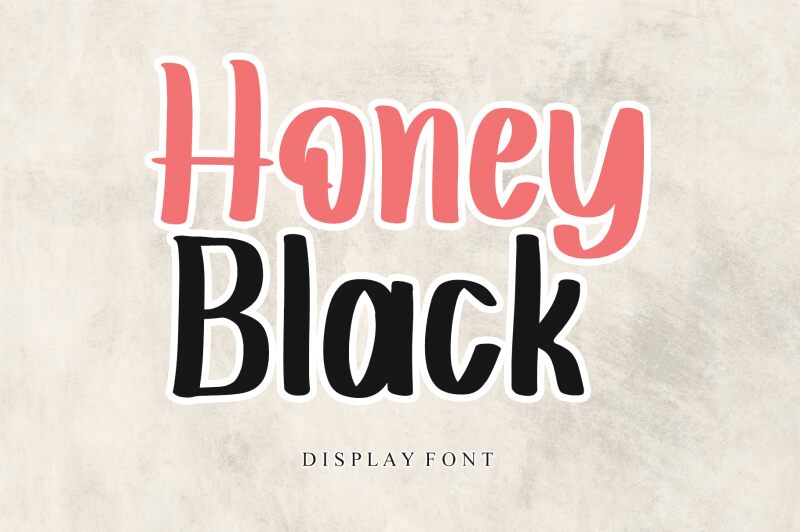
Honey Black, a creation of Letterafa Studio, presents itself as a handwritten font with a distinct personality. Its fluidity is reminiscent of elegant cursive writing, while the bold strokes offer a modern twist that adds depth and character. The subtle irregularities in each letter mimic the natural variation found in human handwriting, making Honey Black an aesthetically appealing choice for designers looking to infuse warmth and authenticity into their work.
With its approachable yet sophisticated style, Honey Black is versatile enough for a variety of creative endeavors. Whether it's used for branding, invitation cards, or product packaging, this font has the potential to elevate any project with its unique blend of charm and readability. The handwritten nature makes it particularly suitable for businesses aiming to establish a personal connection with their audience through design elements that feel individualized and handcrafted.